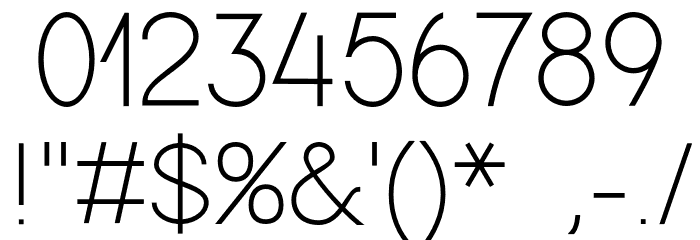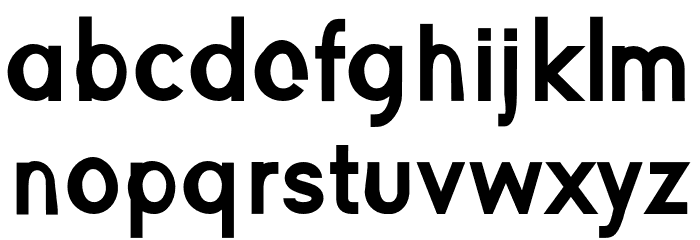
BoldOblique Font
BoldOblique Description
This font features a clean and modern sans-serif style with a geometric structure. The uppercase letters are tall and elegant, while the lowercase letters are bold and rounded, offering a strong visual contrast. The numerals are consistent with the overall design, maintaining clarity and readability. Special characters are well-integrated, ensuring versatility across various uses. The font's simplicity and precision make it suitable for contemporary design projects, providing a professional and polished appearance.
A modern sans-serif font with geometric precision and bold lowercase letters from Uncategorized fonts.
- Proposed Projects: Ideal for branding, advertising, web design, and editorial layouts where clarity and modernity are key.
- Use Case: Headlines, Logos, Web design